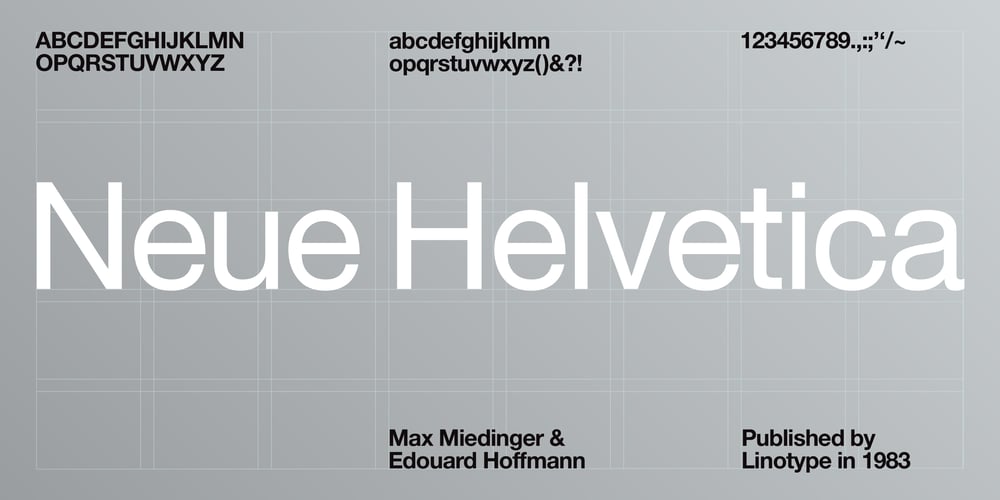
Neue Helvetica Font Family was designed by Max Miedinger, Linotype Design Studio and published by Linotype. Neue Helvetica contains 59 styles and family package options. Neue Helvetica® is a melding of aesthetic and technical refinements that result in superior design proportions, improved legibility and an expanded range of uses beyond the original Helvetica typefaces.Neue Helvetica World fonts enable the setting of pan-European languages, in addition to Arabic, Armenian, Cyrillic, Georgian, Greek, Hebrew, Thai and Vietnamese. The Cyrillic fonts include full support of the Unicode block, including characters for Bulgarian, Mazedonian, Serbian and Ukrainian. Other Monotype global fonts can be paired with Neue Helvetica World to create a more comprehensive global typographic solution. A few examples follow: Devanagari: Saral DevanagariJapanese: Tazugane Gothic or Yu GothicKorean: YD Gothic 100 or YD Gothic 700Simplified Chinese: M Ying Hei PRC or M Hei PRCTraditional Chinese: M Ying HK or M Hei HK Click here to download a brochure with more information on Neue Helvetica World.